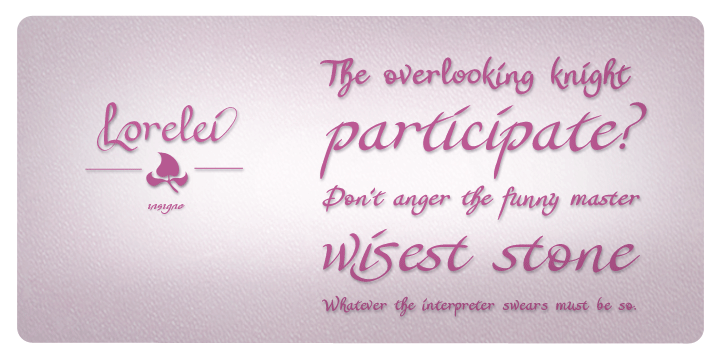
Lorelei is an exuberant and bouncy script.
The ink seems to be slathered onto the surface in a casual and spontaneous manner, making for a flowing and feminine script that is perfect for invitations or greeting cards. The script also contains a large number of OpenType alternates and ligatures to extend the impulsive nature of the lettering.
Lorelei is named for a young German maiden that supposedly threw herself into the Rhine.